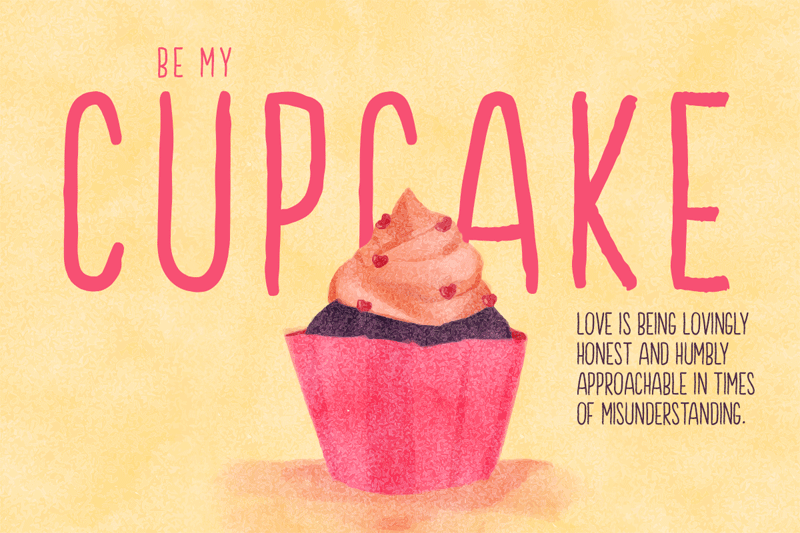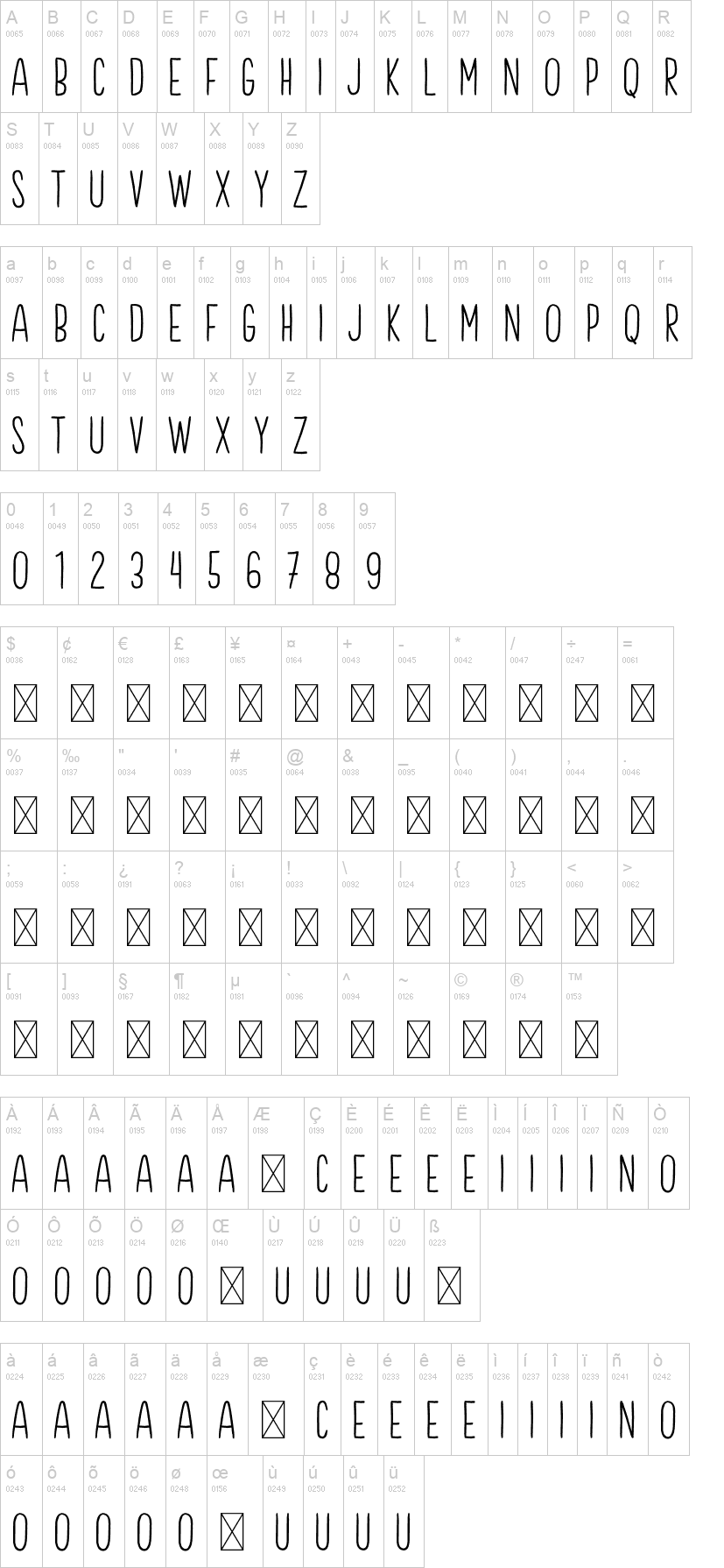
Note of the authorDownload Brook, a beautifully handcrafted font for free! Use it to add a touch of magic to your next project. Whether youre creating a birthday card or a gift tag, Brook is the perfect way to personalize your designs. Dont miss out on this amazing font download it now for free!